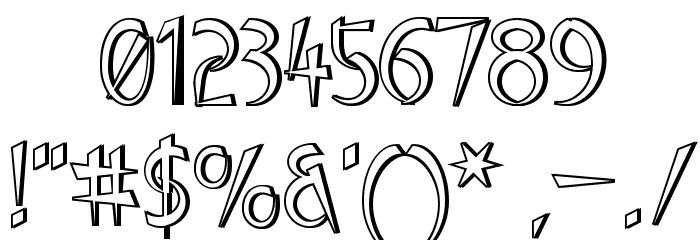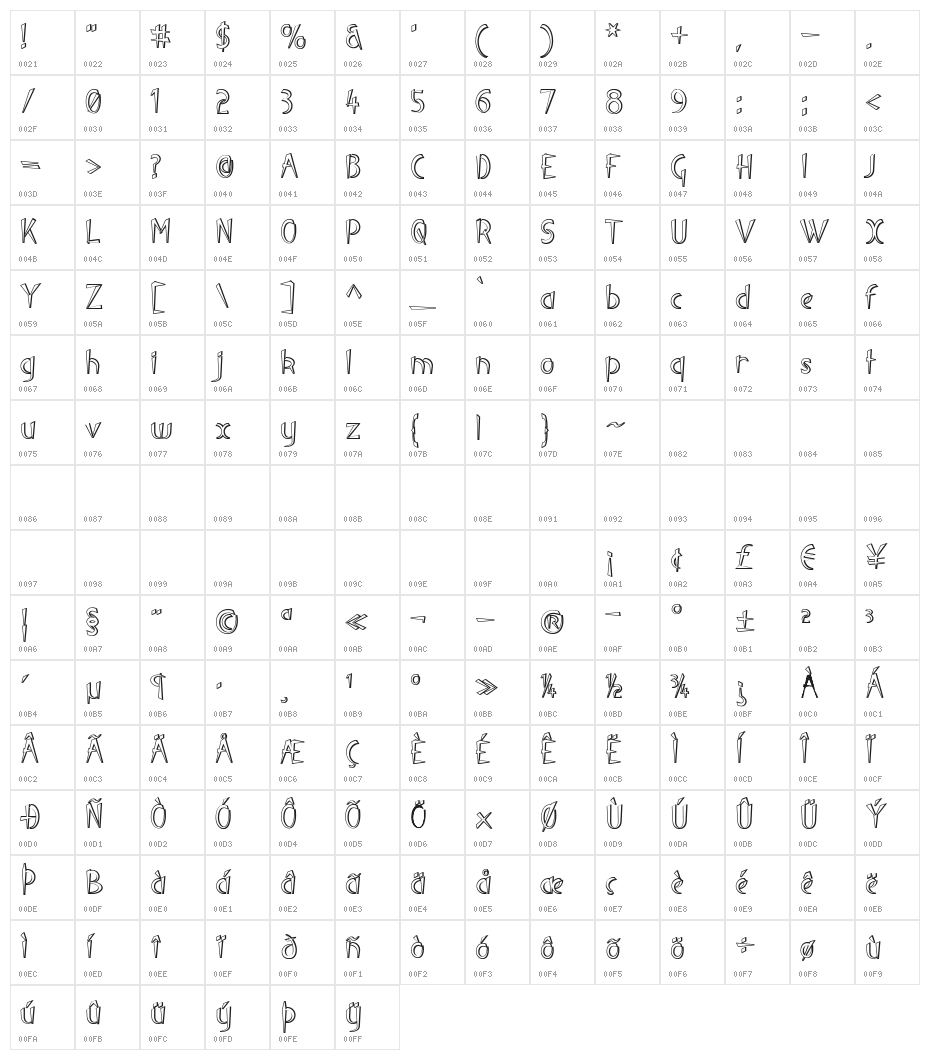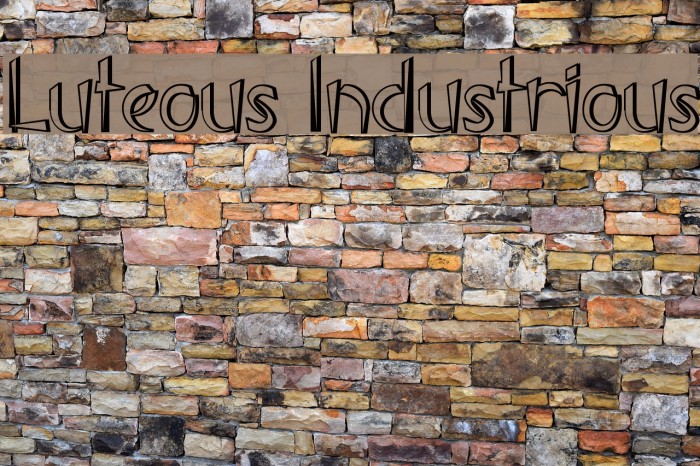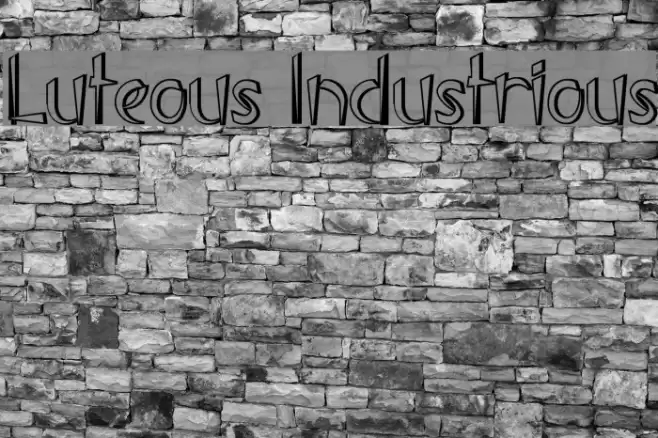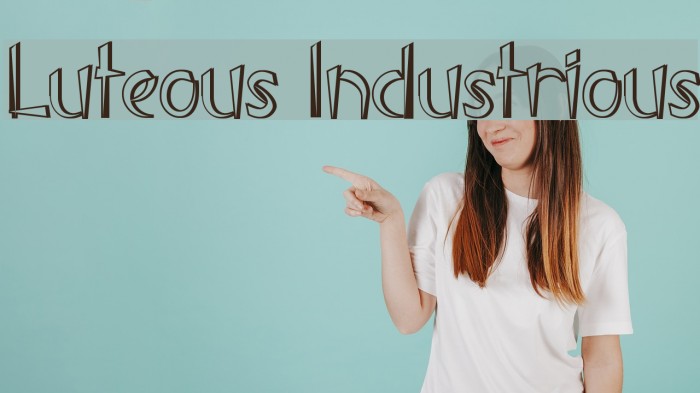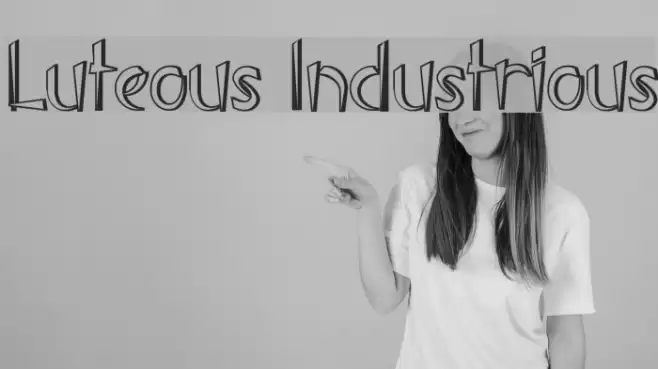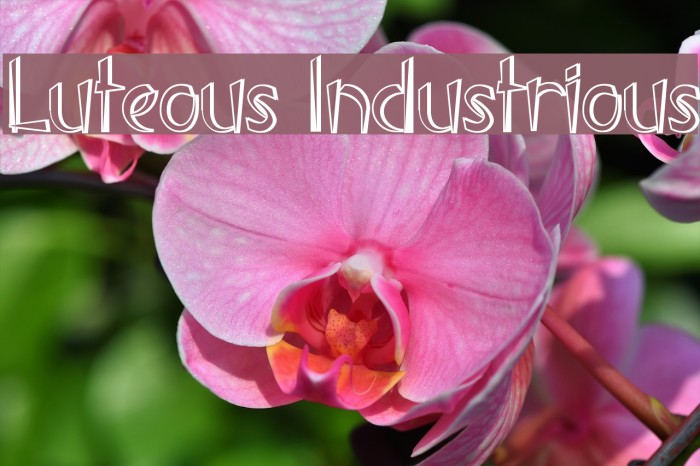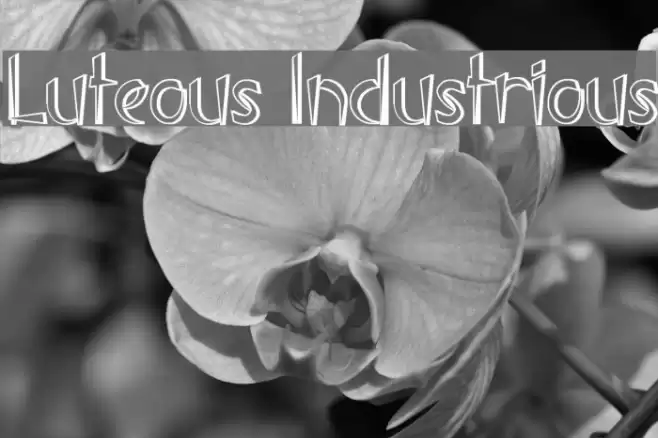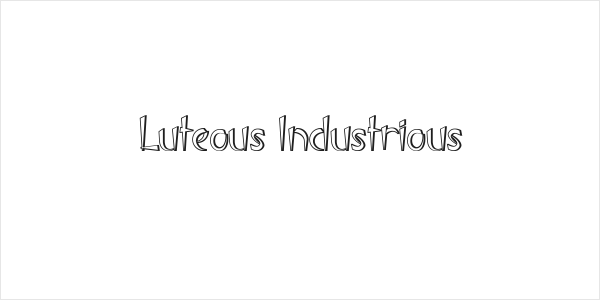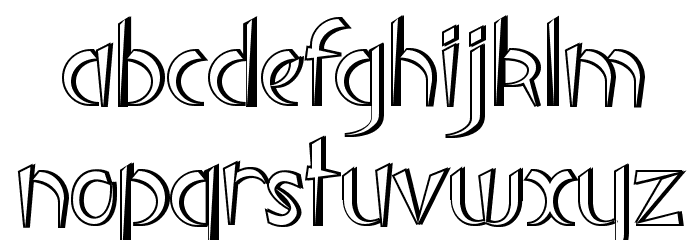
Luteous Industrious Font
Luteous Industrious Description
This font features a unique, artistic style with a three-dimensional effect created by bold outlines and inner lines that mimic shadows. The characters are uppercase and lowercase letters, numbers, and a variety of special symbols. Each letter has a playful, dynamic appearance, making it stand out with its geometric and slightly abstract design. The font's structure is consistent, with a balance between thick and thin strokes that add depth and interest. The overall look is modern and eye-catching, suitable for creative and bold design projects.